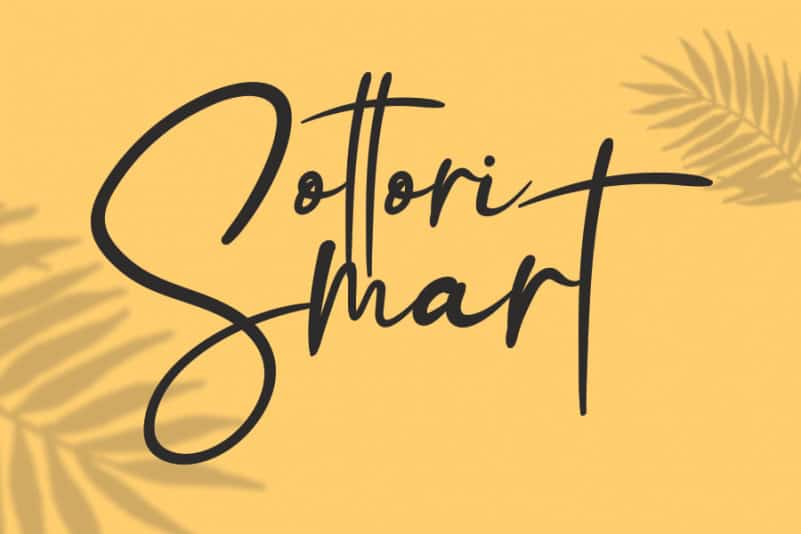
Rattingan Handwritten Font
Rattingan Handwritten Font is a relaxed, elegant and delicate handwritten font. Fall in love with its incredibly distinct and timeless style and use it to create spectacular designs!
The latest style letters are perfect for wall displays, wedding invitations, social media post logos, advertisements, product packaging, product designs, labels, photography, watermarks, invitations, stationery, and any project that requires taste handwriting.